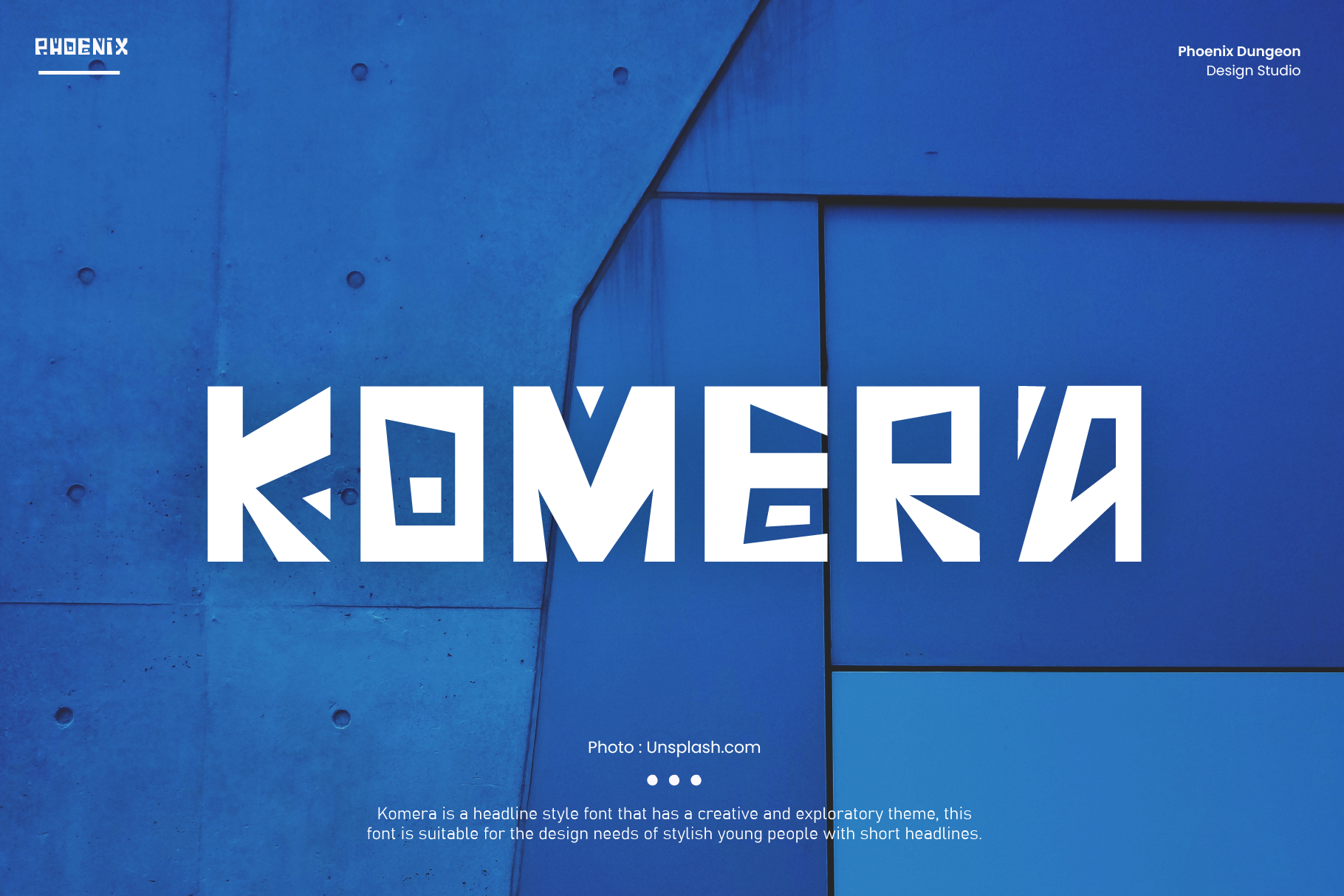
Komera is a headline style font that has a creative and exploratory theme, this font is suitable for the design needs of stylish young people with short headlines.